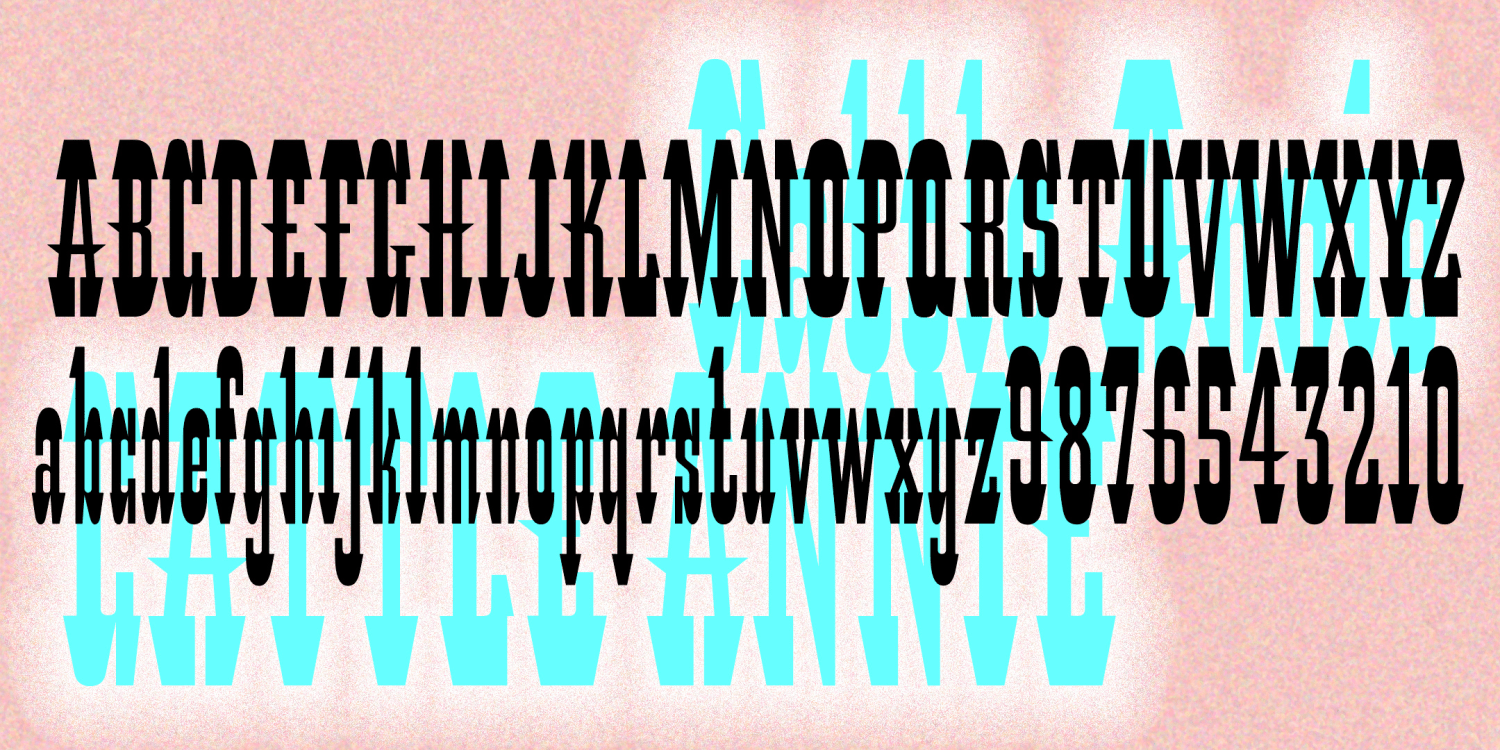
Cattle Annie
CATTLE ANNIE is my unauthorized digital interpretation of the analog font “Les Catalanes.” According to ABZ: More alphabets and other signs by Rothenstein and Gooding, it was designed n 1952 by Enric Crous-Vidal (1908-1987) but was never produced. Other Crous-Vidal fonts include Paris, Flash, and Ilerda from Fundición Tipográfica Bauer.
The original source (with an incomplete character set) says Crous-Vidal’s Paris show was “the graphic hit of the ’52 season” and refers to Les Catalanes as “this flamboyant character of Mediterranean inspiration.” You may imagine hooves, horns, heels, hats and moustaches in its distinctive features. Many such wood-type fonts have traditional names like Tuscan, Latin, or Egyptian, revealing their Mediterranean connection.
Fifty years later and thousands of miles away, it could be mistaken as a Wild West or circus style. But other such fonts (Playbill, for example) have long been used for a variety of display applications, having been rediscovered by eclectic designers. It’s definitely time again to reclaim these fonts for new purposes, rather like heavy metal and Goth culture revived “Old English” fonts.